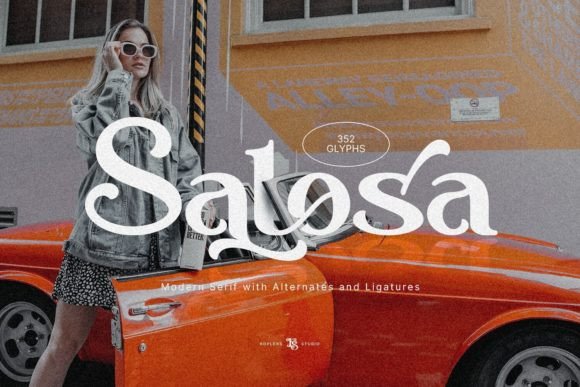
Introducing Salosa Font, the epitome of elegance and luxury! Created by the talented Koplexs Studio, this serif font is a must-have for anyone seeking to make a stylish statement. With its exquisite design and captivating features, Salosa Font is the perfect choice for a wide range of applications.
Are you in search of a font that will elevate your logo design and leave a lasting impression? Look no further! Salosa Font exudes sophistication and class, making it the ideal companion for an elegant and luxurious logo. Whether you're representing a high-end fashion brand or a cosmetic line, this font will add a touch of glamour to your visual identity.
Magazines aimed at women need a font that embodies femininity and grace. Salosa Font effortlessly captures these qualities, making it the go-to choice for classy editorial designs. From fashion magazines to lifestyle publications, this font will lend an air of sophistication to your pages, captivating readers and keeping them engaged.
When it comes to advertising, standing out from the crowd is crucial. Salosa Font offers a modern and eye-catching solution for your advertising design needs. Its unique style will grab attention and convey a sense of contemporary elegance, ensuring your message gets noticed and remembered.
Invitations are meant to create anticipation and excitement, and Salosa Font is the perfect tool to achieve just that. Whether you're inviting guests to a special event or sending out personalized cards, this font will add a touch of charm and sophistication to your words, setting the tone for a memorable occasion.
Art quotes are meant to inspire and evoke emotions. With Salosa Font, your quotes will come to life, exuding elegance and creativity. Let your words make a powerful impact with this captivating font, turning any quote into a work of art.
Looking to add a touch of sophistication to your home decor? Salosa Font can even be used for book and cover titles, making your reading experience even more enjoyable. Its timeless appeal will turn any book into a collector's item, showcasing your refined taste.
In a world full of ordinary events, make yours extraordinary with Salosa Font. Whether it's a wedding, a gala, or a corporate gathering, this font will add a touch of elegance and prestige to your special occasions, leaving a lasting impression on your guests.